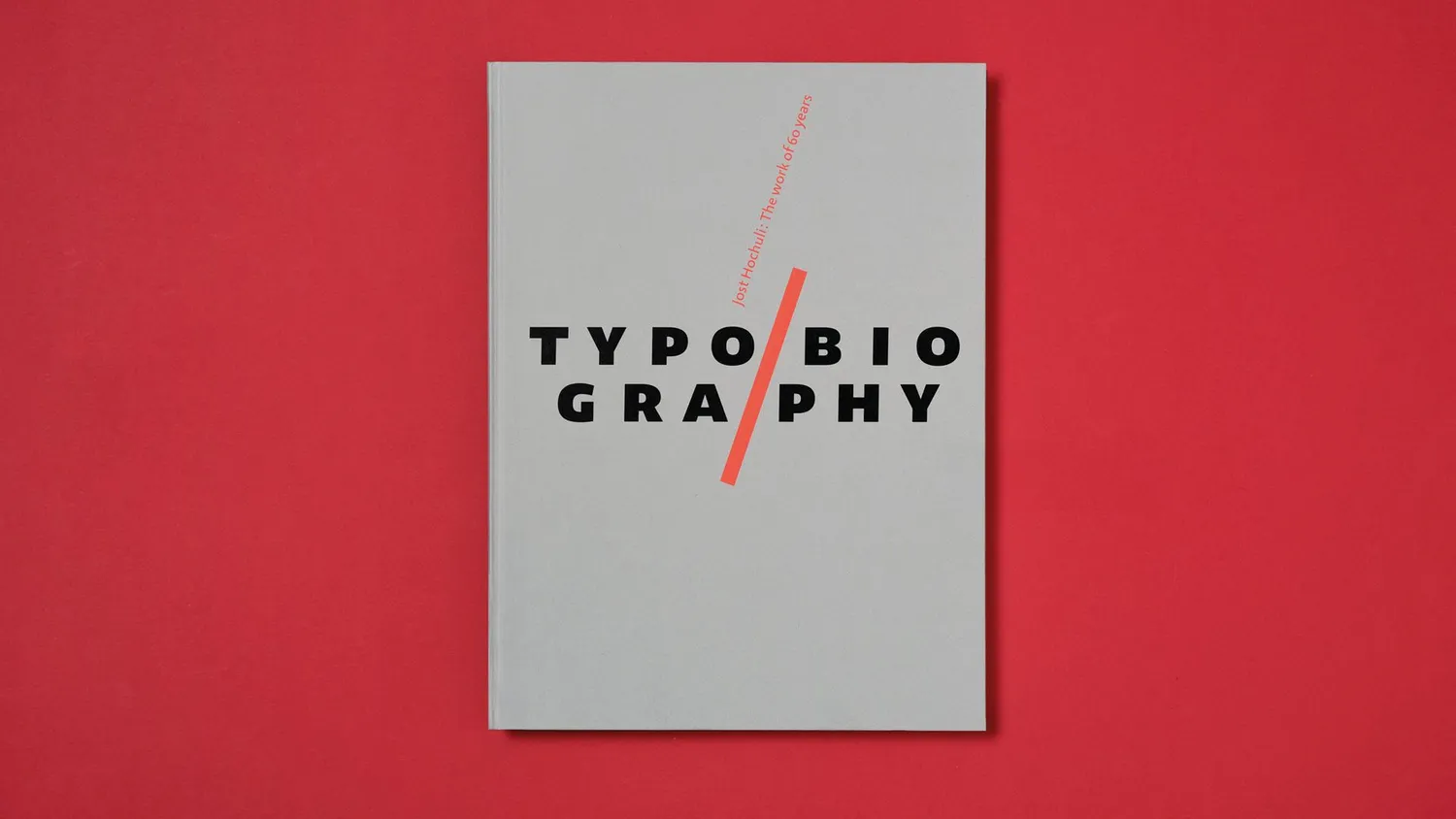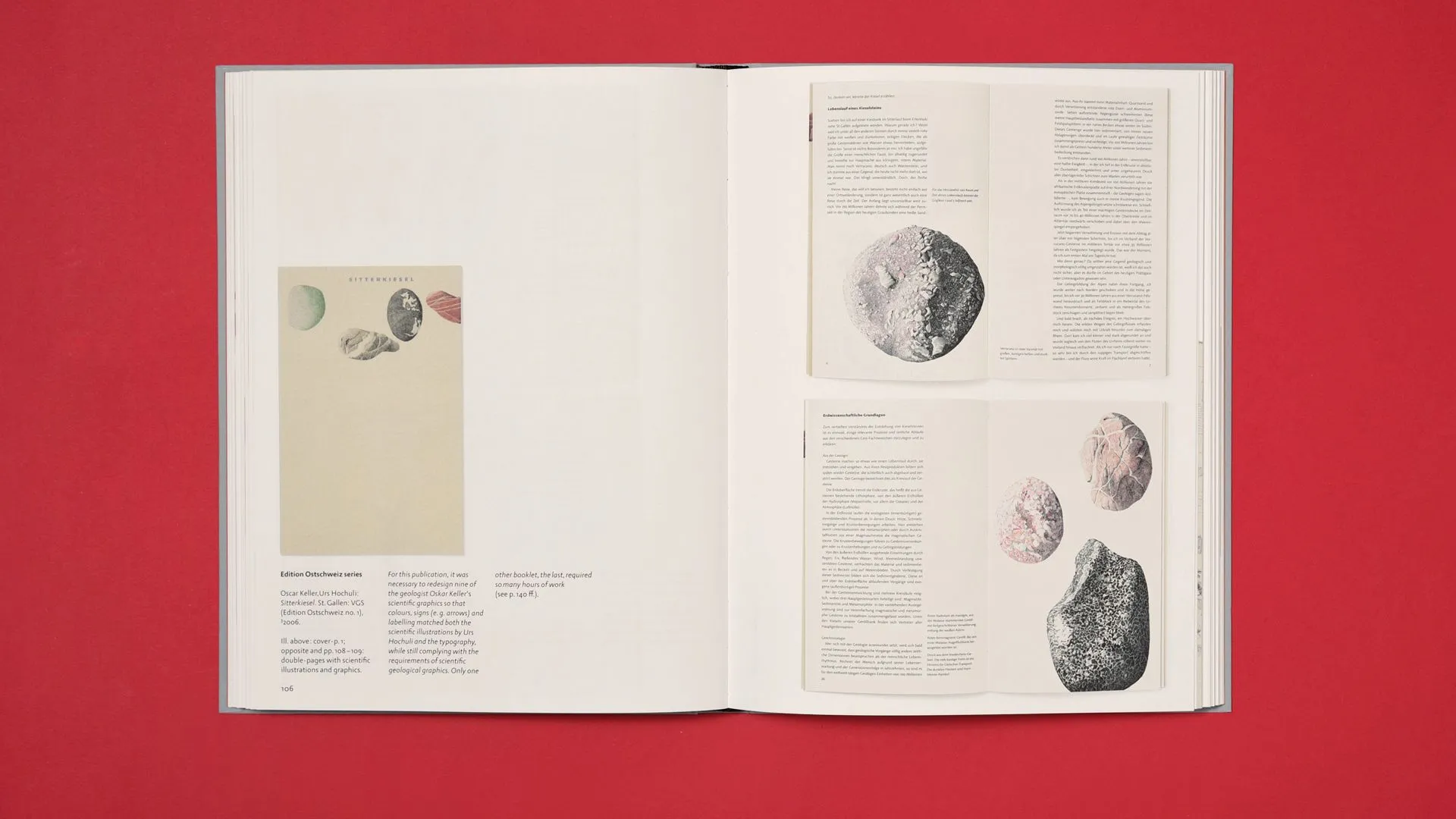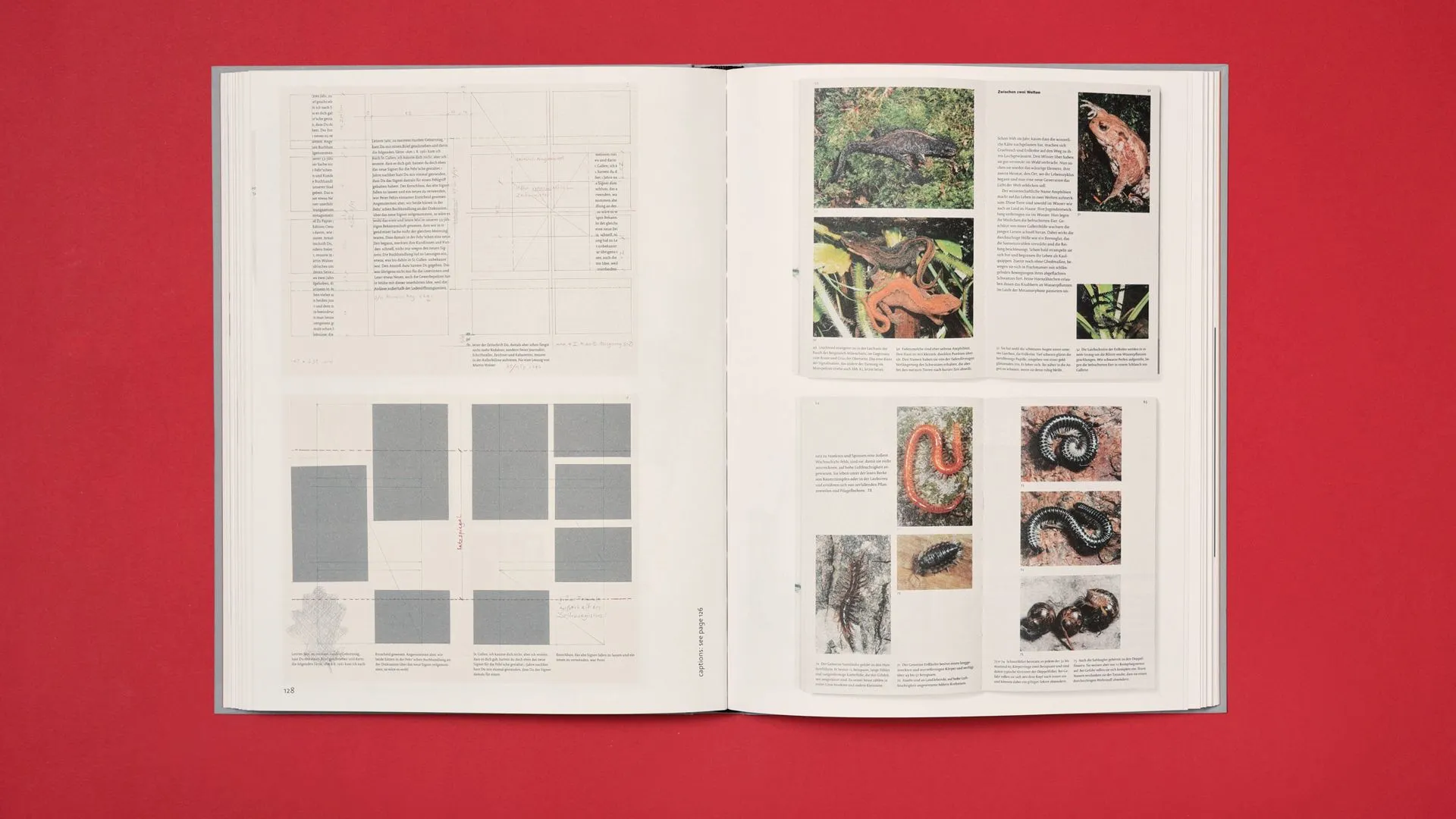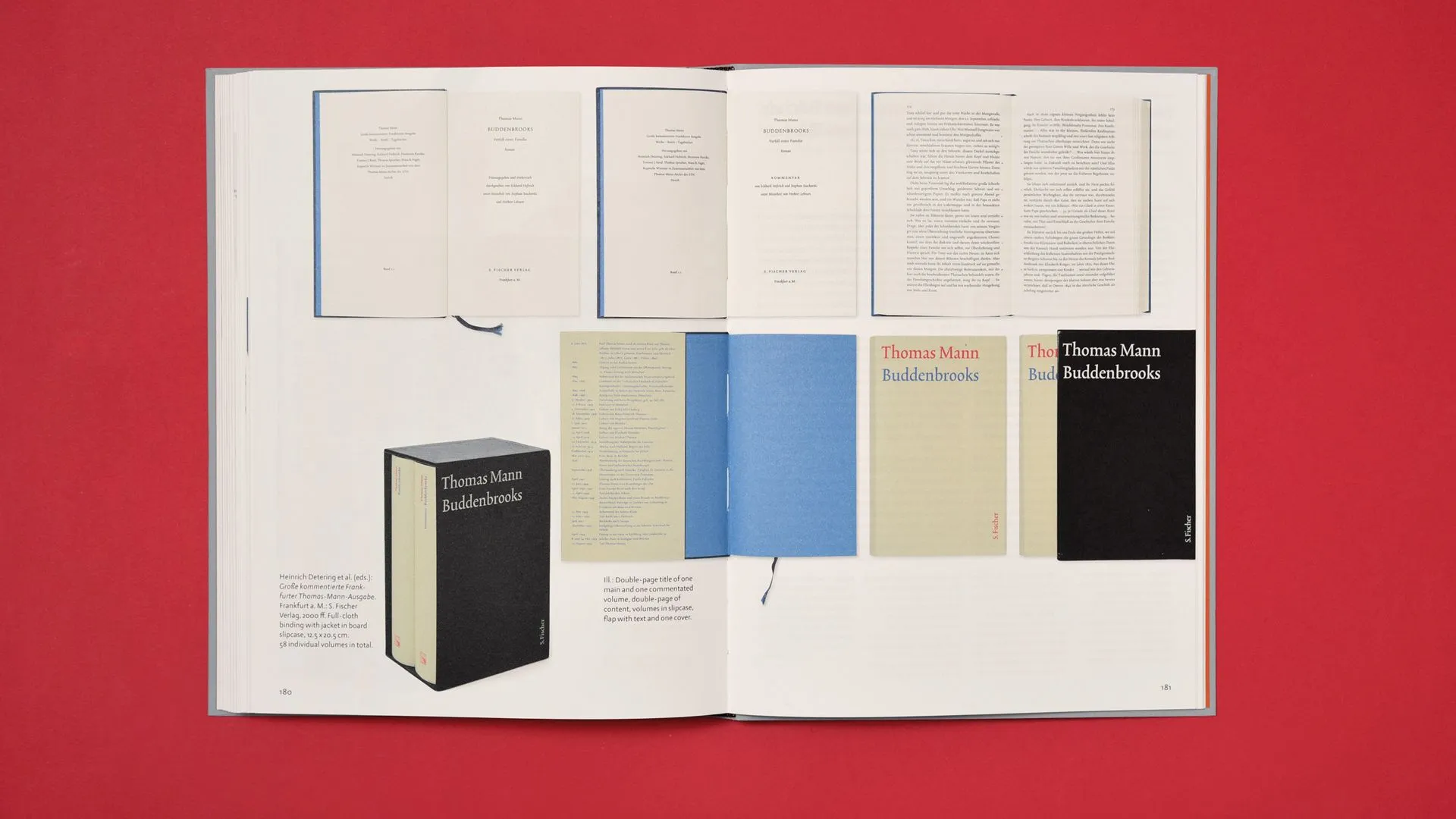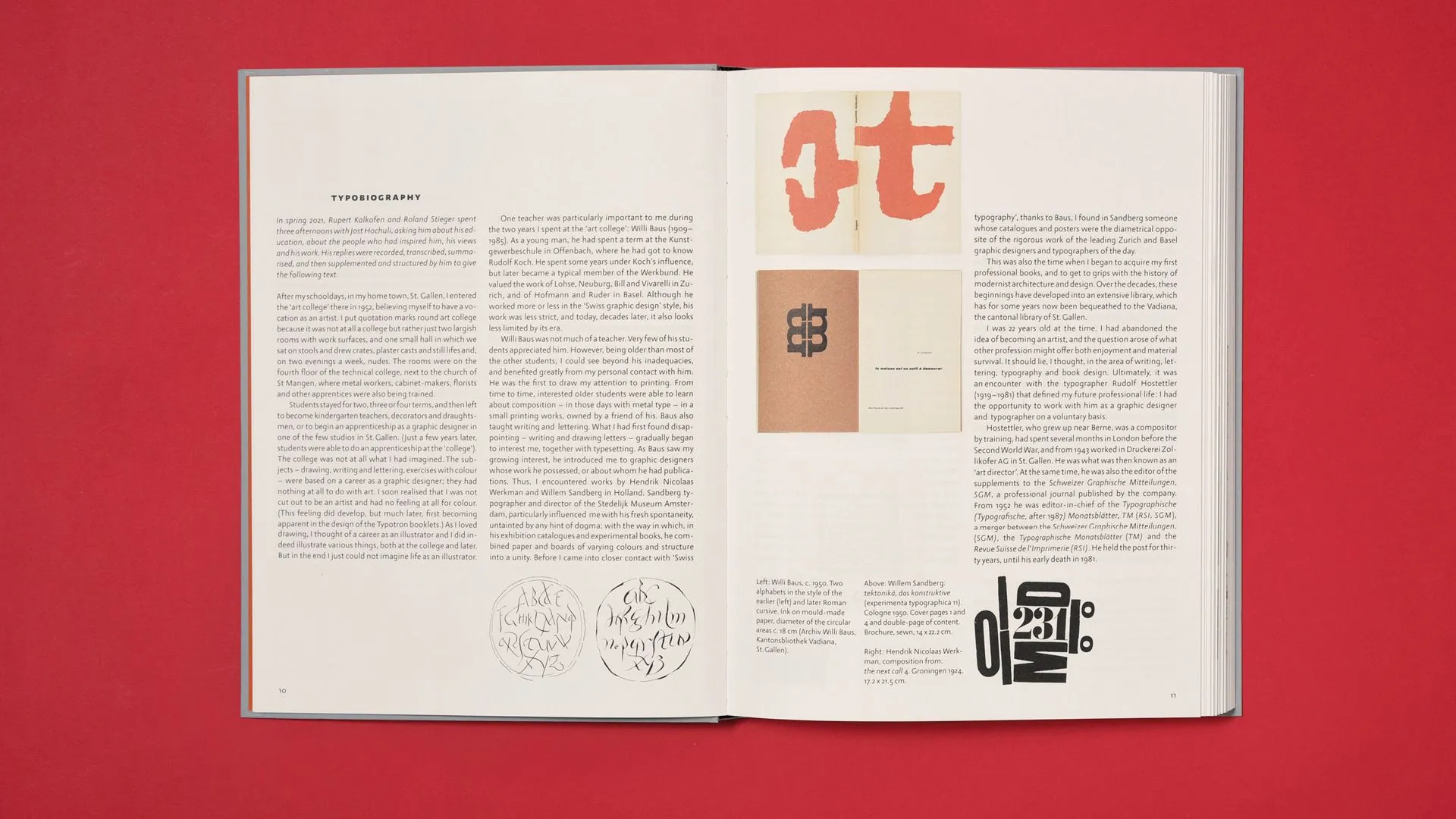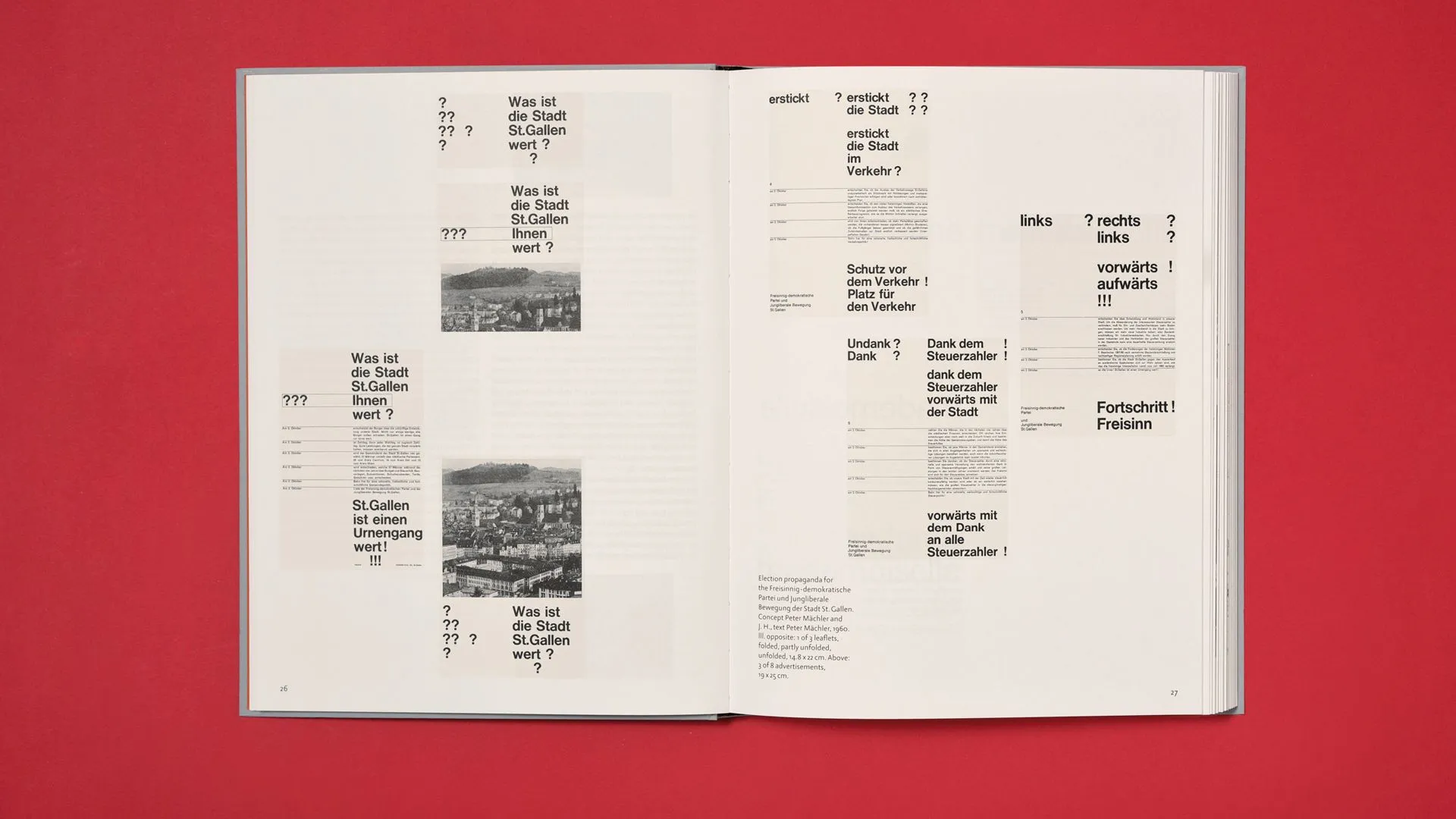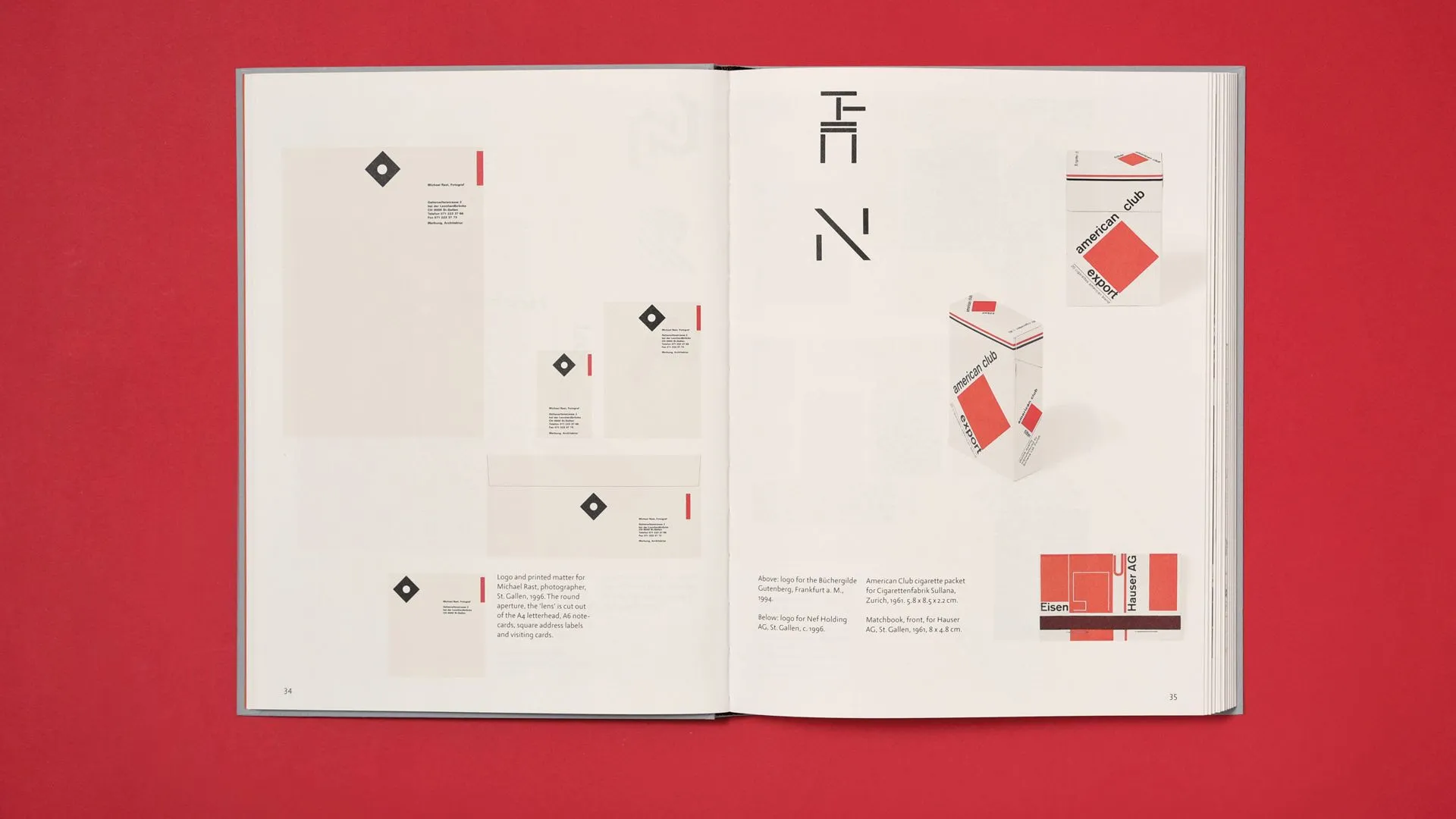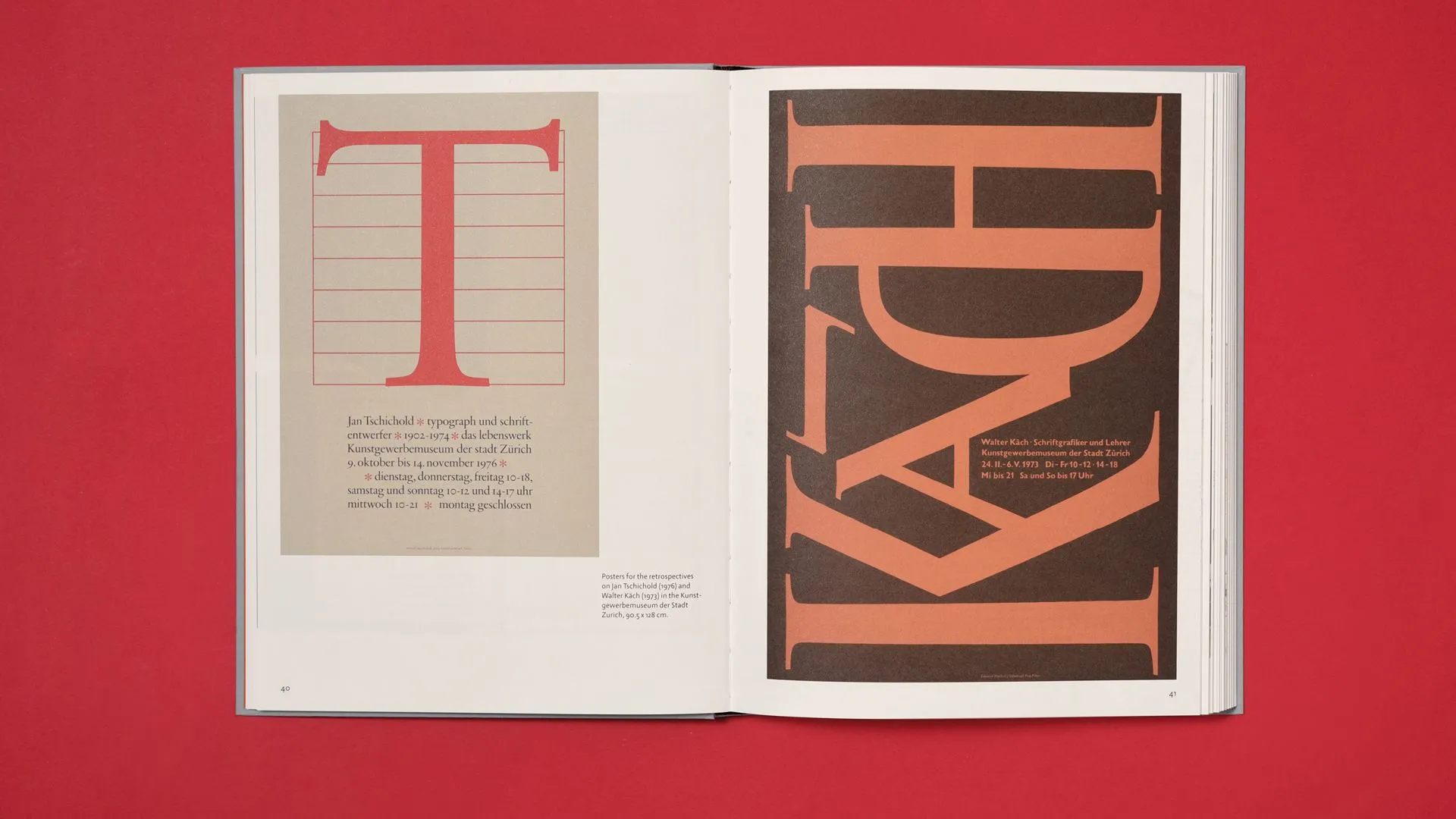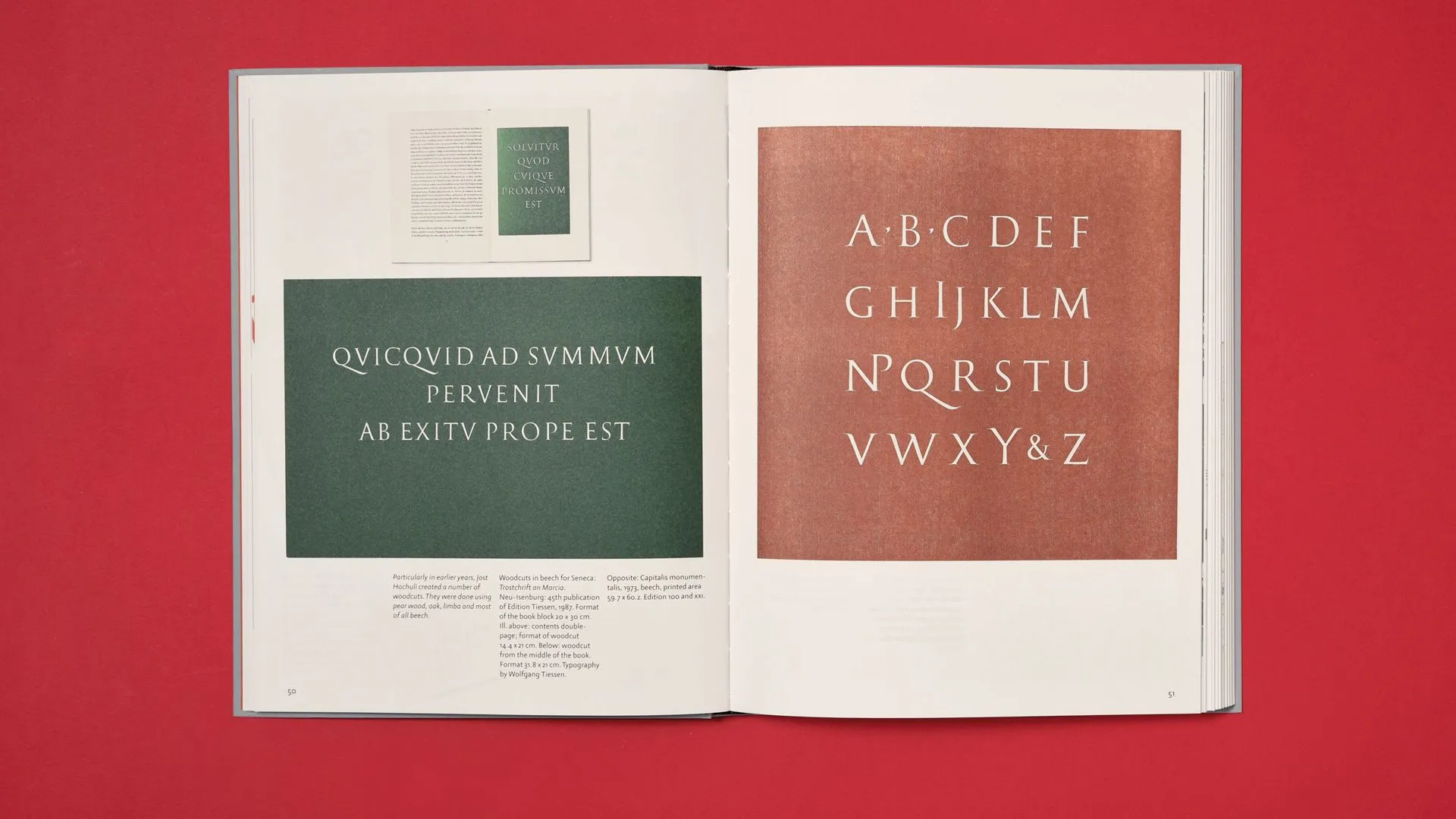
Typobiography
Typobiography looks back over the long and prolific career of the Swiss designer and typographer. Bringing together several texts by Jost Hochuli himself, contributions by well-known figures (including a preface by John Morgan and an interview with Robin Kinross) and a corpus of previously unpublished archival images, this monograph aims to raise interest in book design, and especially the inspirations and personalities that marked out the designer’s career. The book is a visual monograph, which develops in several thematic sections the questions that have guided Jost Hochuli’s practice over his sixty-year career, and in particular his conception of design as an essential factor in the legibility of a text and the transmission of knowledge. Each part is abundantly illustrated with works specifically digitized and displayed in a layout designed by Jost Hochuli himself, to create a reference work on the designer’s work. The designer has just celebrated his 90th birthday in 2023, yet no monograph of his work has been published since Printed Matter, Mainly Books in 2002. This book will provide a much-needed update on the last twenty years of Jost Hochuli’s career, as well as on the renewed interest in his work, particularly as an author, among younger generations.
Three of Jost Hochuli books published by B42 in French and sometimes in English.
We have two particularly difficult tasks ahead of us. The first is to offer a monograph without being over-emphatic and glamorous, nor in the cold distribution of factual figures. The second is to address the identity of a Swiss graphic designer.
Typobiography is a mirror title, aptly reflecting the passion of its author, Jost Hochuli. The man is discreet, yet he's one of the Swiss authors whose calm, composed words are heard around the world. We know him through The detail in Typography, the bible of microtypography, but he's also behind a few other equally relevant works in different spheres.
A mirror too, since his profession is more about organizing text than seeking style or expression. The man sees himself more as a craftsman at the service of content, than one seeking to convey a philosophy or message.
His typography is mainly revealed in the pages of books, more than on posters or identities. A lover of these types, he has also ventured into type design, resulting in Allegra, a family of 9 weights in 2 styles that he exploits precisely in the pages of his monograph.
Hochuli is one of the contemporary masters of the book, perhaps alongside Irma Boom, in a relatively distant style. Yet he admits that his publishing output is limited compared to that of his peers. His modest-looking books, with their simple materials and often small print runs, demonstrate the high quality of his work as much as the accuracy of his positioning.
Some double spread pages from the Typobiography chapter.
Some of his early work is clearly influenced by Constructivism, New Typography and Swiss Style.
Indeed, when producing graphic design in Switzerland between 1960 and 2020, we question our identity. Hochuli is not interested in style, Swiss style like others. Modernist or traditionalist, these two camps are reminiscent of the post-World War II quarrel between moderns and classics, when Max Bill and Jan Tschichold wrote articles in response to each other. If to choose is to renounce, Hochuli takes a step to the side. When you're asked to choose sides, you're entering a war. But peace must win. In this, Hochuli shows his wisdom, taking what is good from both poles to offer a nuanced and delightful creation, whose subtlety is enough to annoy the most dogmatic of both camps.
His editorial work is therefore a skilful blend of flexible grids, a fine exploitation of gaps and hierarchization of texts. Neither modernist nor classicist, Hochuli is neither lukewarm nor bland. He's subtle, and it's not easy to date his work, so much so that his balance rests on details that are out of fashion. As a good classic, he pays attention to paper quality, printing economy and the quality of fabric and bindings. As a good modernist, he rhythms his layouts and modulates his limited effects to sublimate the content.
Classic calligraphy cutted on wood.
His work as a book designer is the most amazing part of his 60 years.
Also the book's designer, Hochuli's vision of design is reflected in the sobriety of this book. More than 200 illustrations dress the text with strength and softness. The text of this monograph also adds a special color. Following private exchanges with friends, Hochuli used this draft as the basis for his autobiography. The man writes down the traces of his life with economy and care. His professional apprenticeship, like his family life, is sketched lightly, without eulogy. An interview between Kinross & Früh brings a warm distance to the autobiography. Finally, two short texts by Hochuli punctuate the final pages, like snippets of little that say a lot. He's a man of few who shows that what's necessary is already a luxury.